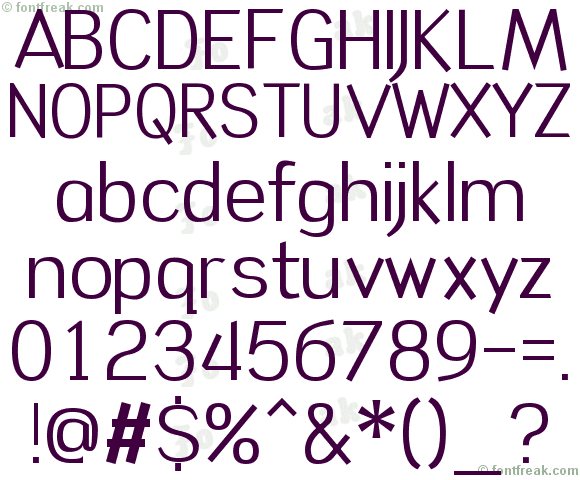
Tin Birdhouse
About Tin Birdhouse
The Tin Birdhouse font by Objects Dart is a unique display typeface that combines rustic charm with modern simplicity. This freeware font features a clean, sans-serif style characterized by its rounded edges and a slightly playful demeanor. The stroke weight is uniform, providing a balanced and approachable aesthetic, while the spacing between characters ensures maximum readability. With its minimalist design, the Tin Birdhouse font offers a subtle contrast, making it suitable for various design applications.
This font is particularly well-suited for creative projects such as wedding invitations, where its friendly appearance can evoke warmth and joy. It also shines on movie posters, adding a touch of whimsy that can attract viewers' attention. Restaurant menus can benefit from the font's legibility and charm, creating a welcoming atmosphere for patrons. Additionally, it works well in branding for small businesses aiming to convey a sense of playfulness and approachability.
The target audience for the Tin Birdhouse font includes graphic designers, small business owners, and content creators who seek to enhance their projects with a distinctive typeface. Whether designing promotional materials or crafting engaging online content, the font adds a unique flair that stands out.